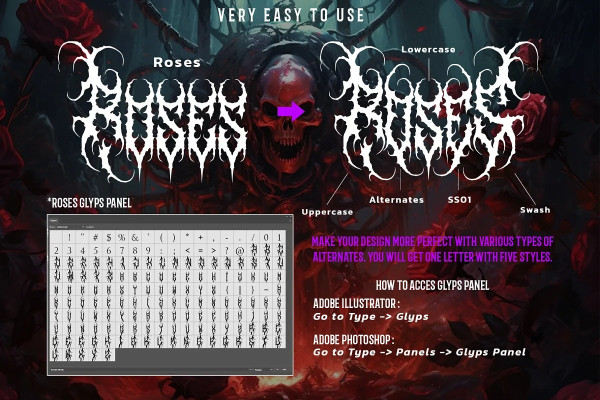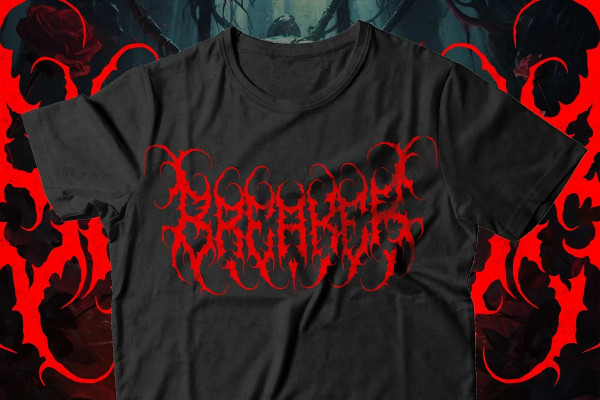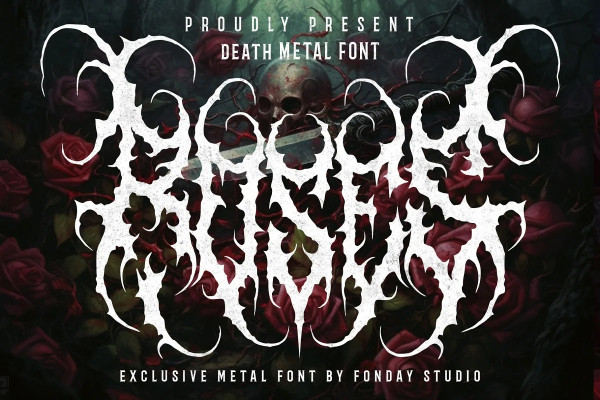
Roses Metal Font
Roses Metal Font, our fierce and striking font that’s perfect for capturing the beauty and brutality of death metal. With its sharp and aggressive design, Roses is ideal for creating designs that reflect the raw intensity and passion of death metal bands.
This font has 5 styles in one letter which makes it easy for you to be creative with this font. This font is perfect for your metal band Logo, T shirt Design, Poster, Tattoo and many more.